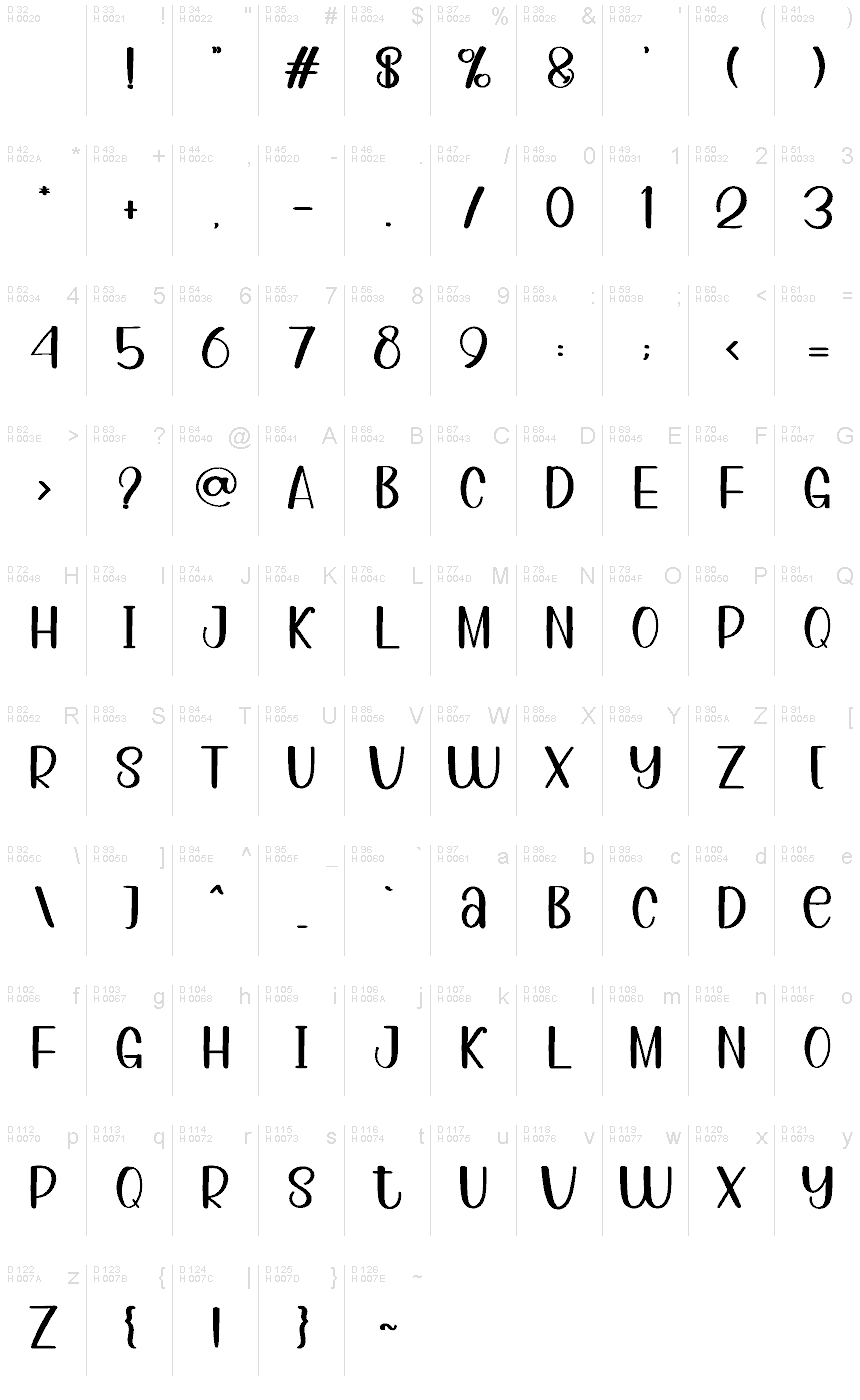
HUMBLE CHEERFUL
Humble Cheerful is a stylish handwritten script font provided by Freshtype Ink for free download. It offers a unique combination of playful round letters, uppercase and lowercase, and striking linear letters, numbers, and symbols. If you download it, you’ll get a family that allows you to use it with a full set of features.
The font will suit anything that requires a professional appearance such as headlines, quotes, logos, social media post designs, etc. It can be combined with other fonts, and with solid shapes and colors to create posters, business card designs, product packaging, etc.